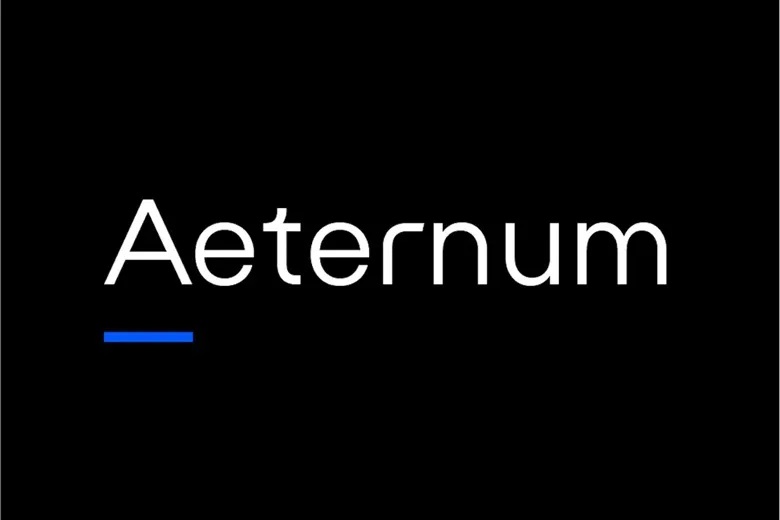
Aeternum Font
Aeternum is designed to have modern style and clarity. Thanks to its ability to support Cyrillic, it’s ideal when used for UI, signage, posters or printed design. The use of survey shapes adds style and versatility to both digital and print uses. Aeternum shows the best of both worlds by being durable and refined.
Aeternum Sans Serif Font